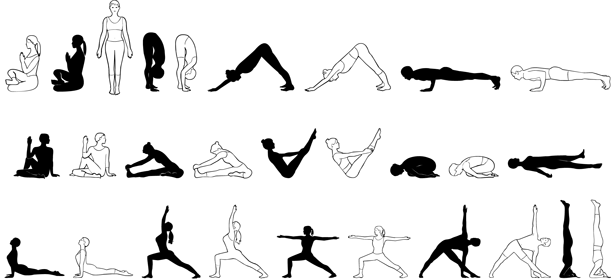
Yoga Studio
About Yoga Studio
Yoga Studio, a set of detailed yoga poses that are both useful and elegant. 15 poses as line drawings and the same 15 in reverse, plus the OM graphic and a lotus flower. Tadasana, trikonasana, savasana – from mountain pose to relaxation pose you will…